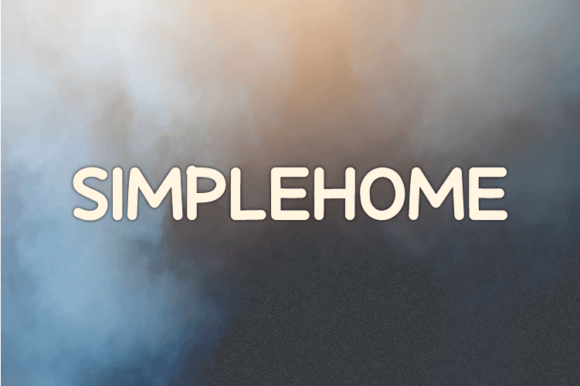
Behold the Simplehome Font, a whimsical, lighthearted, and all-caps handwritten font that effortlessly exudes charm and individuality. This delightful creation by Becraft is a breath of fresh air that invigorates your designs with its playful and inviting nature.
Step into a world of endless possibilities, where Simplehome Font becomes your trusty companion, accompanying you on a creative odyssey. Envision your projects blooming with elegance, adorned with the delightful curvatures and expressive strokes of this font. Whether you're crafting heartfelt greeting cards, embarking on digital design adventures, delivering impactful presentations, or indulging in the joy of handmade crafts, Simplehome Font is your unwavering ally, transforming your ideas into captivating realities.
This captivating font is a true chameleon, effortlessly adapting to a myriad of design landscapes. Its versatile nature allows it to seamlessly blend into logos, branding materials, social media posts, invitations, and countless other creative endeavors. The sky's the limit as Simplehome Font empowers you to weave your creativity into an enchanting tapestry of visual masterpieces.
Indulge in the heartfelt beauty of Simplehome Font, a font that emanates warmth, authenticity, and a touch of nostalgia. Its playful spirit and unmistakable charm add a unique touch to your designs, setting them apart from the ordinary and leaving an indelible mark on your audience.